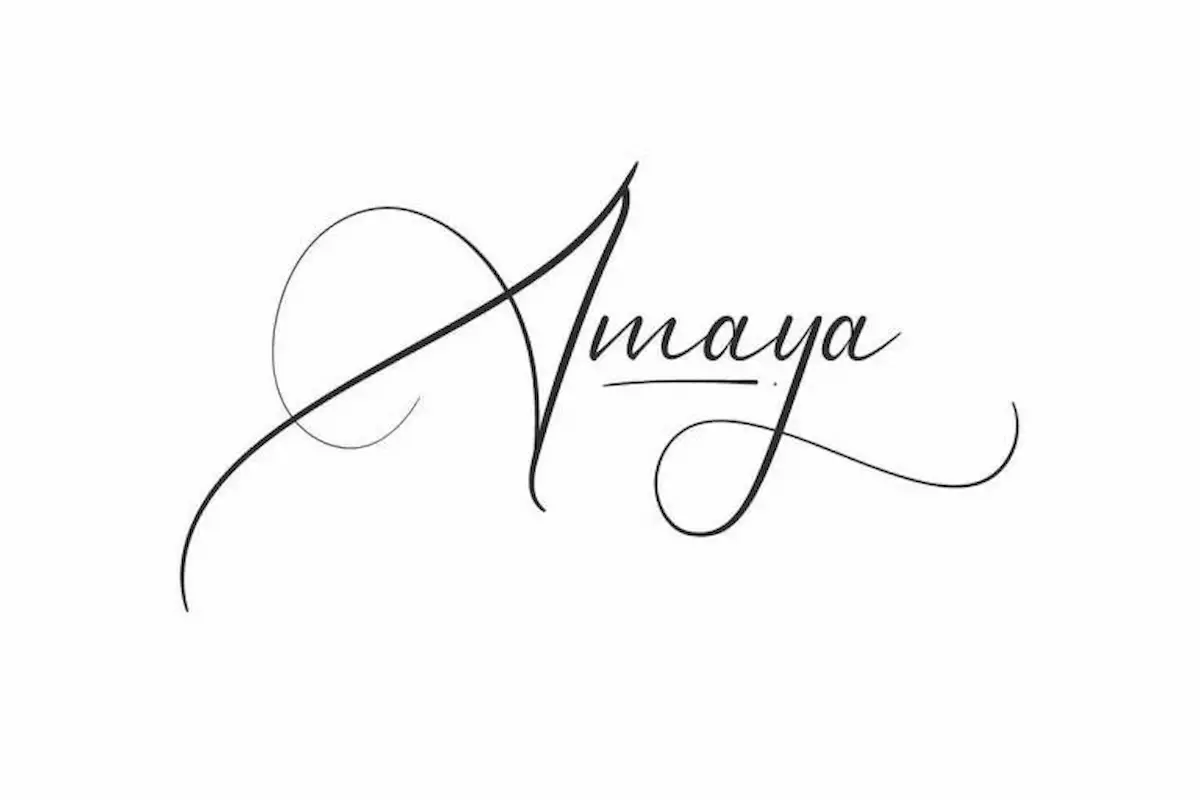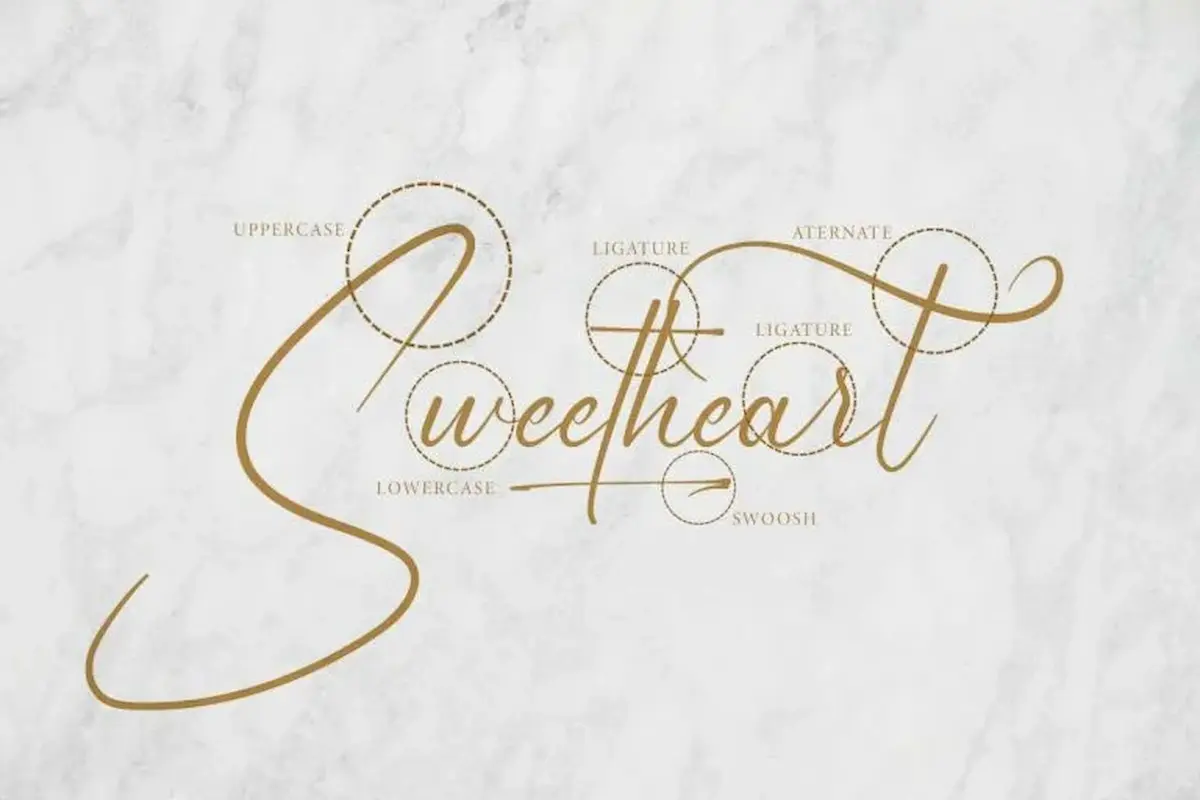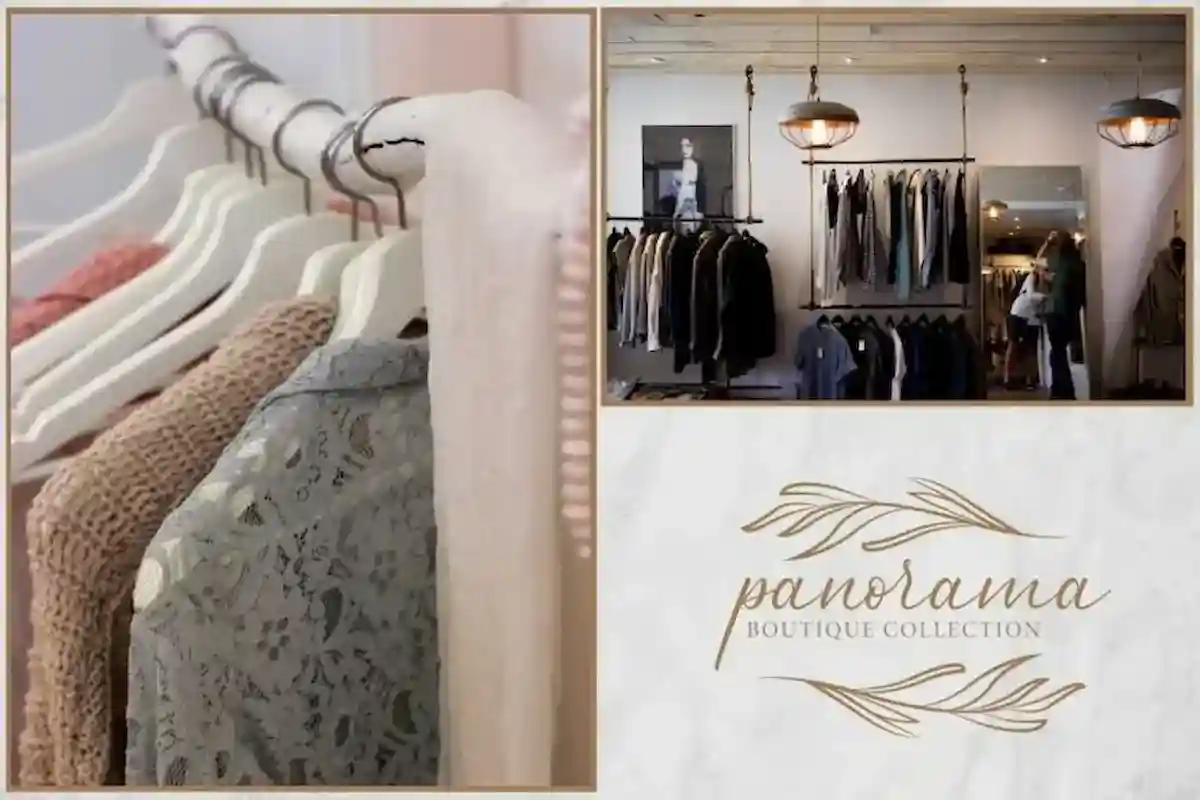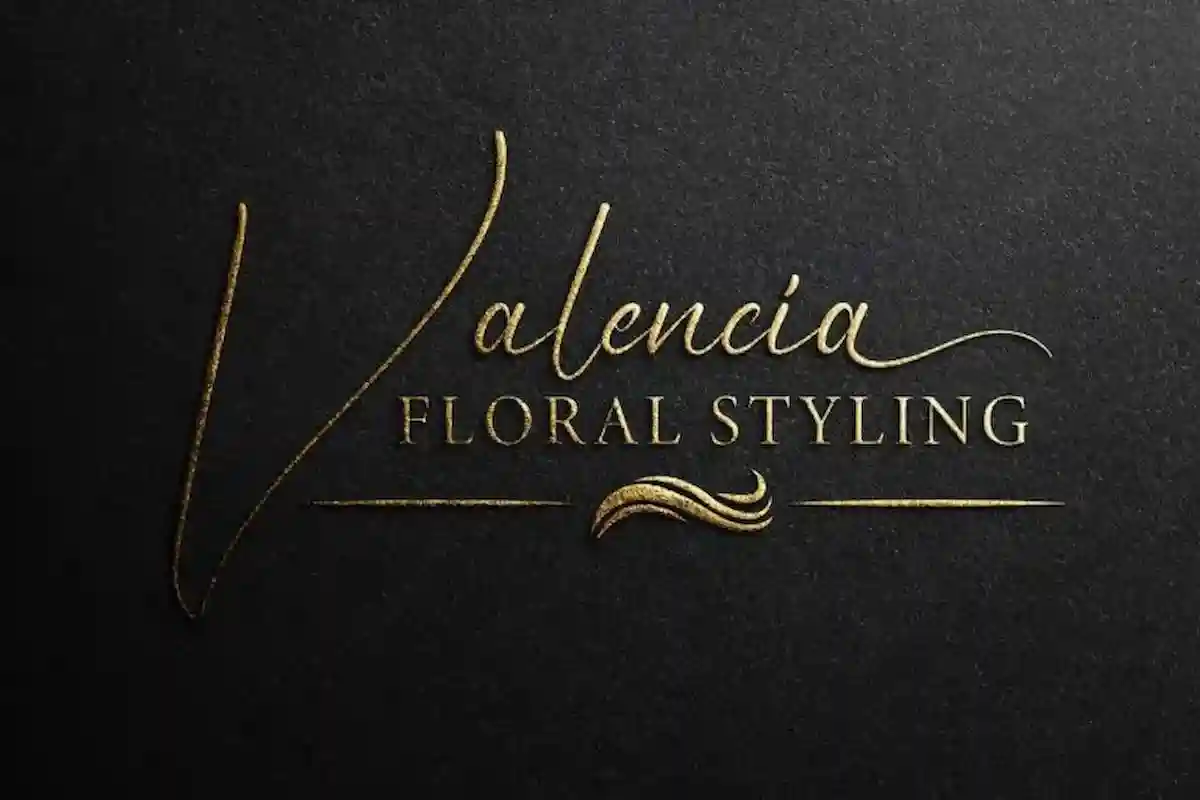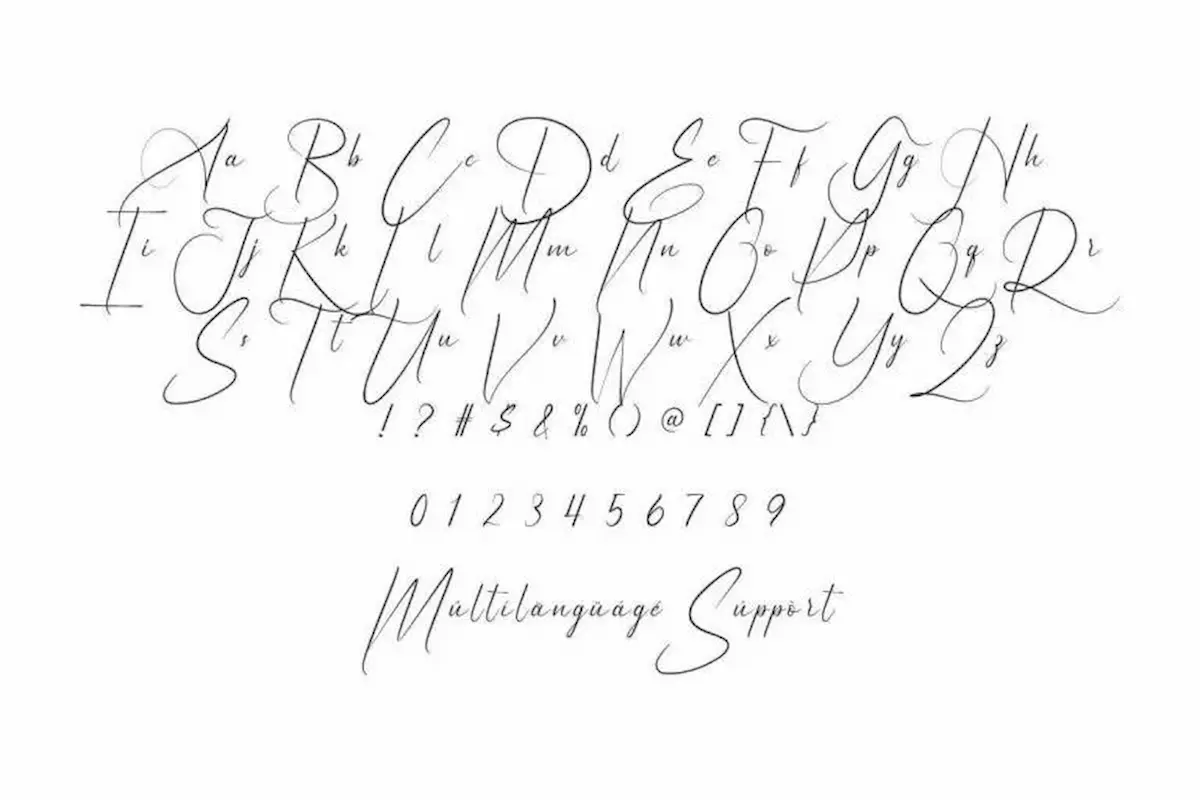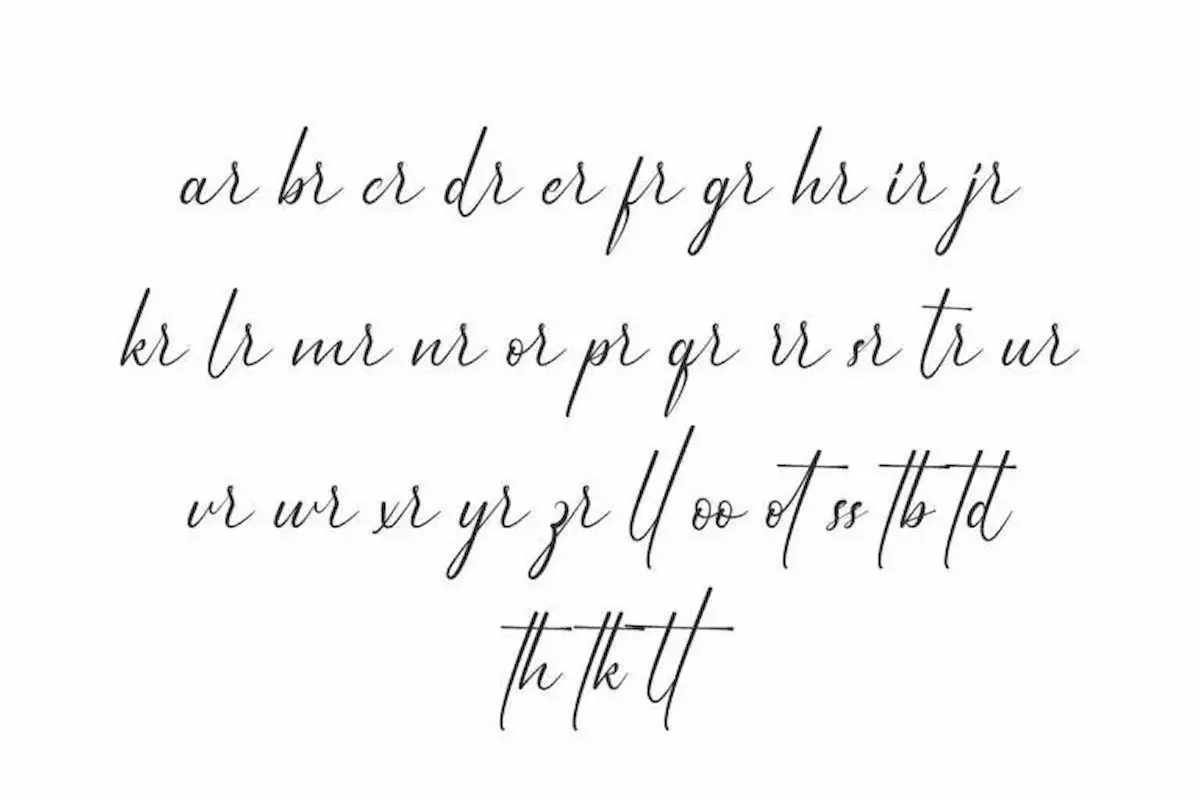
Amaya Font is an exclusive modern signature calligraphic font by NihStudio
Amaya Font is a modern handwriting calligraphy font, originally made in 2021 by NihStudio Font Designer :Â Widi and Sarah. On the package you will get :
Amaya Font will be great for any projects (require extended license) including : branding, logo, stationery, business card, signage, flyer, brochure etc. The theme style of the font is modern, elegant, luxury, glamour, gold, vintage, stylish, sophisticated and classic light calligraphic style. The font will be match for this typeface: wedding, events, real estate, architect, law firm, florist, gardening, makeup artist, travel, hotel, musician etc